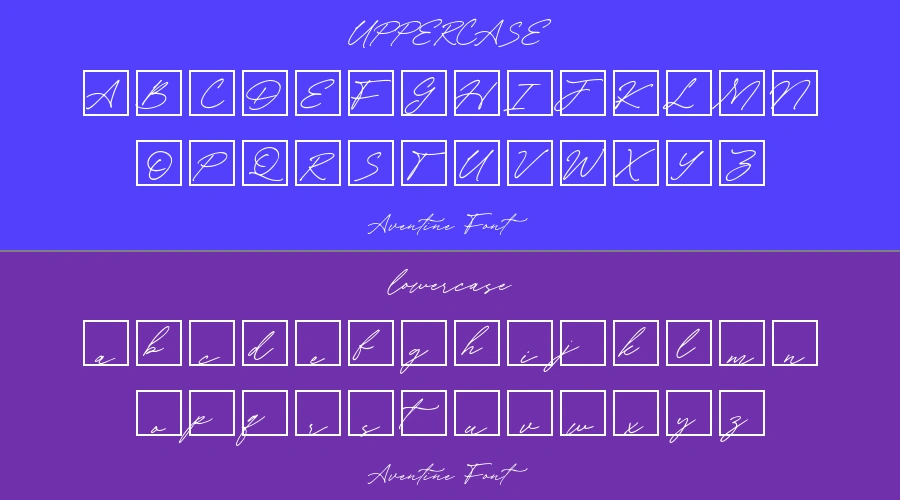
About Aventine Font
Aventine Font embodies typographic excellence through its masterful combination of hand-drawn quality and accuracy. Created for film titles, this typeface delivers exceptional authenticity and design excellence across all applications. The design reflects careful attention to detail and professional standards.
Advanced capabilities include distinctive assertive angles and versatile authentic details, giving designers creative control. When used in brand logos, Aventine Font exhibits remarkable multi-color registration. The harmonious balance between stroke modulation and emotional resonance sets this typeface apart.